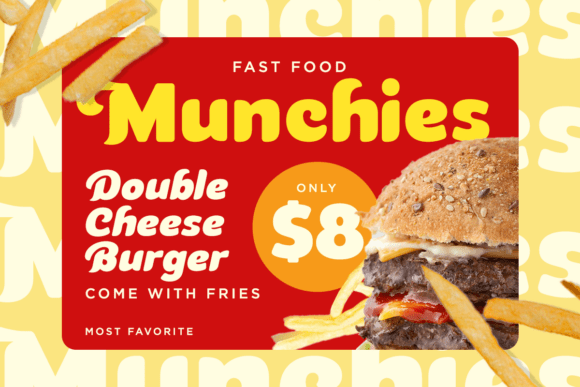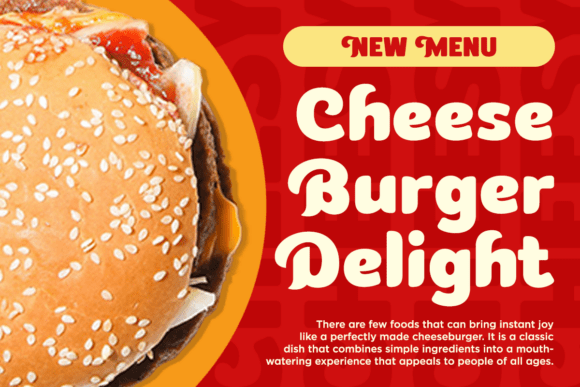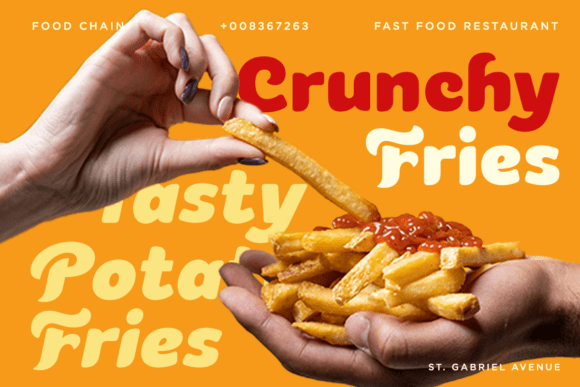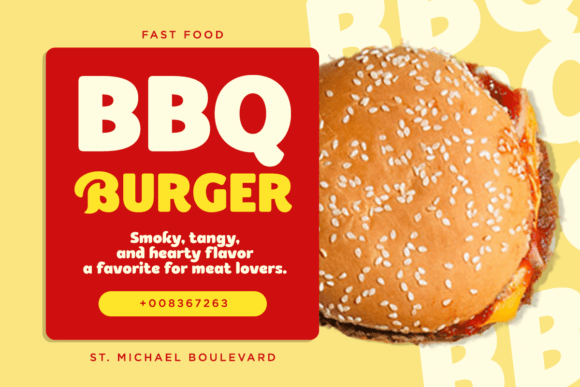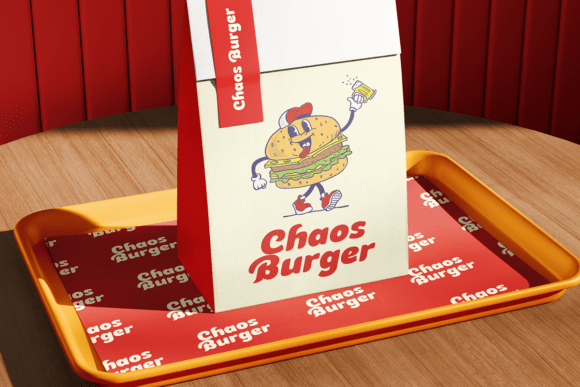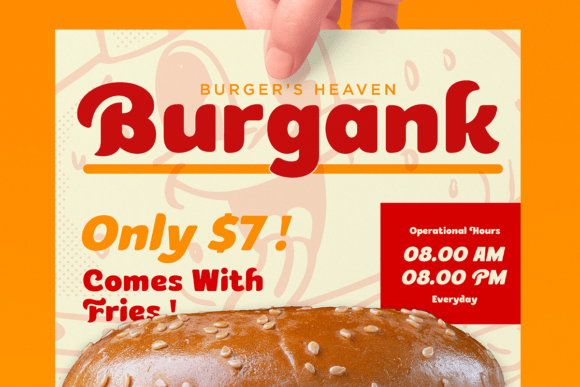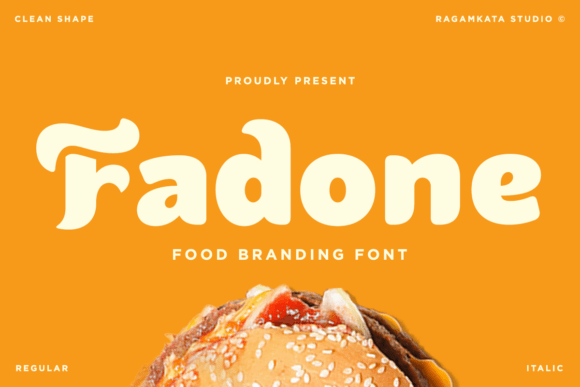
Fadone Font: The Perfect Blend of Playfulness and Cleanliness for Food Branding
In the world of food branding, a font can make all the difference in creating a memorable and appealing identity for your brand. Introducing Fadone, a bold, playful, and clean font specifically designed to bring warmth, appetite appeal, and friendly personality into every design. Whether you’re a food brand, restaurant, café, or beverage label, Fadone is the perfect choice for crafting a brand identity that feels delicious, fun, and approachable.
Design Characteristics of Fadone Font
Fadone is built with smooth curves, soft edges, and balanced proportions, delivering a joyful and inviting character that instantly attracts attention and builds emotional connection. Its friendly typographic tone makes every word feel appetizing, fun, and approachable. The font’s design characteristics include:
- Smooth curves and soft edges for a friendly and approachable feel
- Balanced proportions for optimal readability
- Bold and playful style to grab attention
- Clean and modern design for a fresh look
Crafting Memorable Brand Identities with Fadone
Fadone offers outstanding flexibility across commercial and creative projects, making it the perfect choice for a wide range of applications, including:
- Logo design
- Menu layouts
- Product packaging
- Food labels
- Café signage
- Street food branding
- Social media content
- Advertisements
- Promotional visuals
Whether you’re building fast food brands, dessert packaging, snack logos, drink labels, food truck visuals, café branding, bakery identities, or Instagram food campaigns, Fadone helps create memorable brand identities that feel tasty, fresh, and modern.
Why Choose Fadone Font?
There are many reasons why Fadone font stands out from the rest:
- Unique and distinctive style: Fadone’s bold, playful, and clean design makes it perfect for food branding
- Flexibility: Use Fadone across various applications, from logo design to social media content
- Emotional connection: Fadone’s friendly typographic tone builds emotional connection with your audience
- Readability: Fadone’s balanced proportions ensure optimal readability
Perfect for Food Brands and Designers
Fadone font is perfect for food brands, restaurants, cafés, and beverage labels looking to create a memorable brand identity. Designers and crafters will love Fadone’s flexibility and versatility, making it easy to use across various projects.
With Fadone, you can:
- Create mouth-watering logos and branding materials
- Design eye-catching menu layouts and signage
- Develop memorable product packaging and labels
- Craft engaging social media content and advertisements
In conclusion, Fadone font is the perfect choice for food branding, offering a unique blend of playfulness and cleanliness. Its friendly typographic tone, smooth curves, and balanced proportions make it perfect for creating memorable brand identities that feel delicious, fun, and approachable. Whether you’re a food brand, restaurant, café, or beverage label, Fadone is the perfect choice for crafting a brand identity that stands out from the rest.